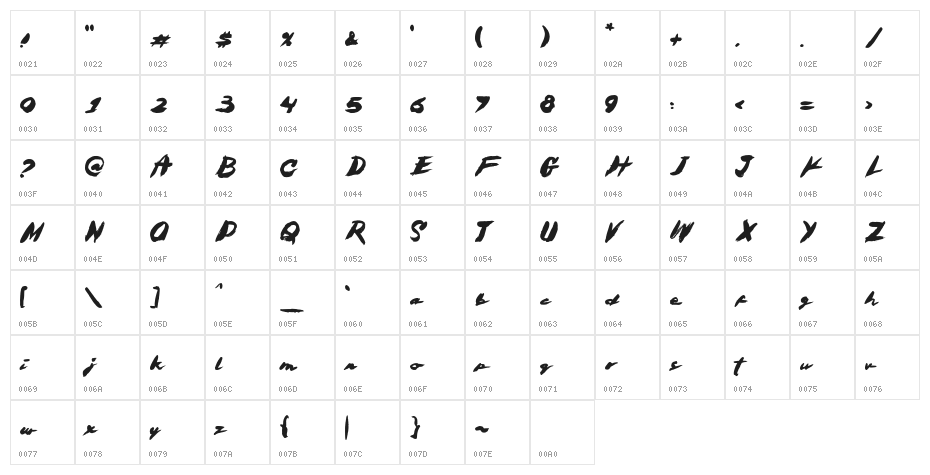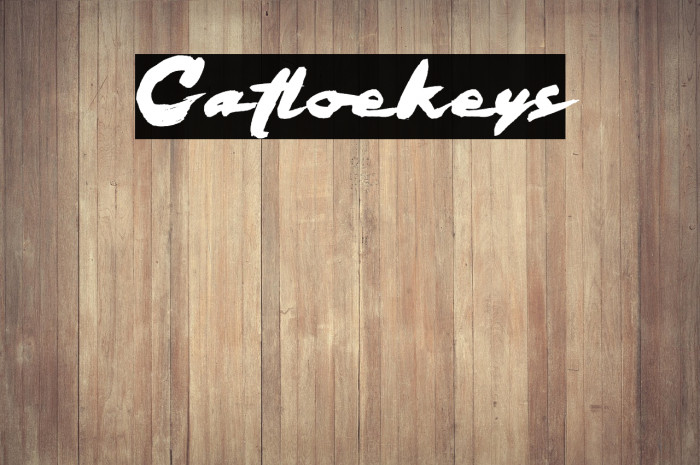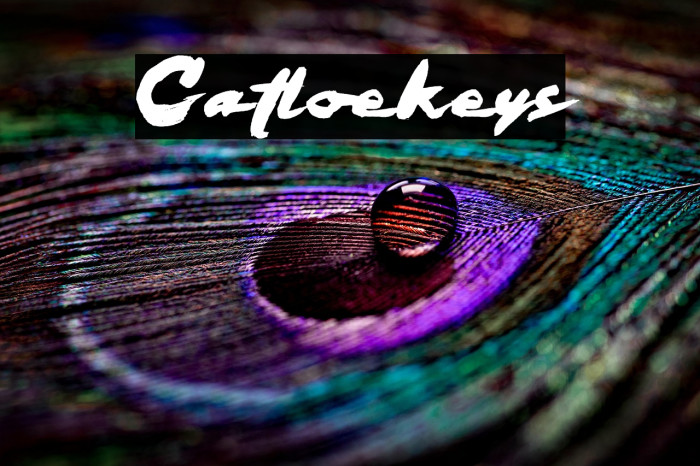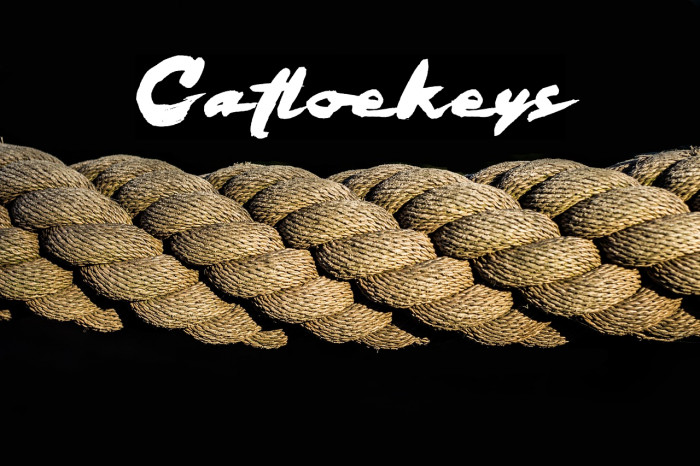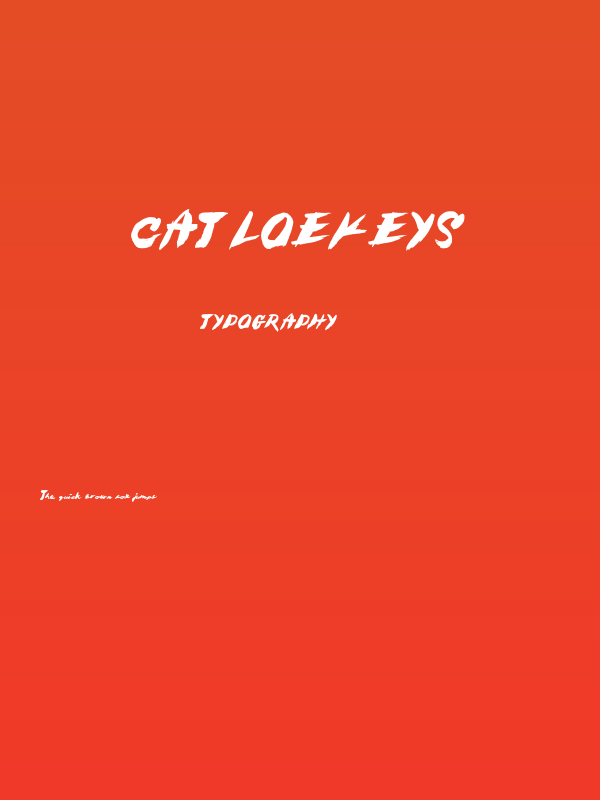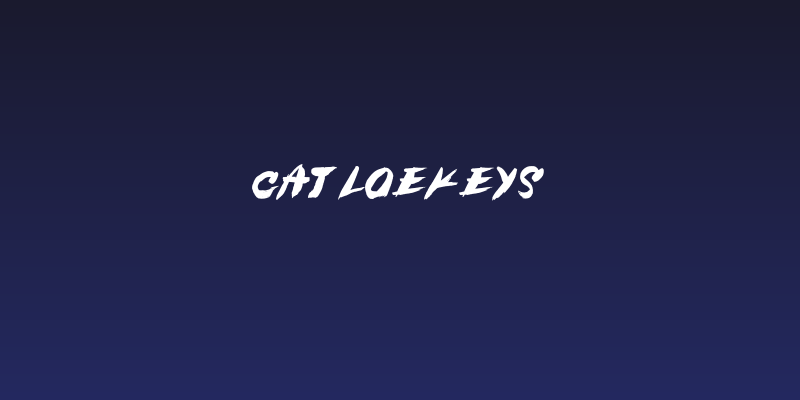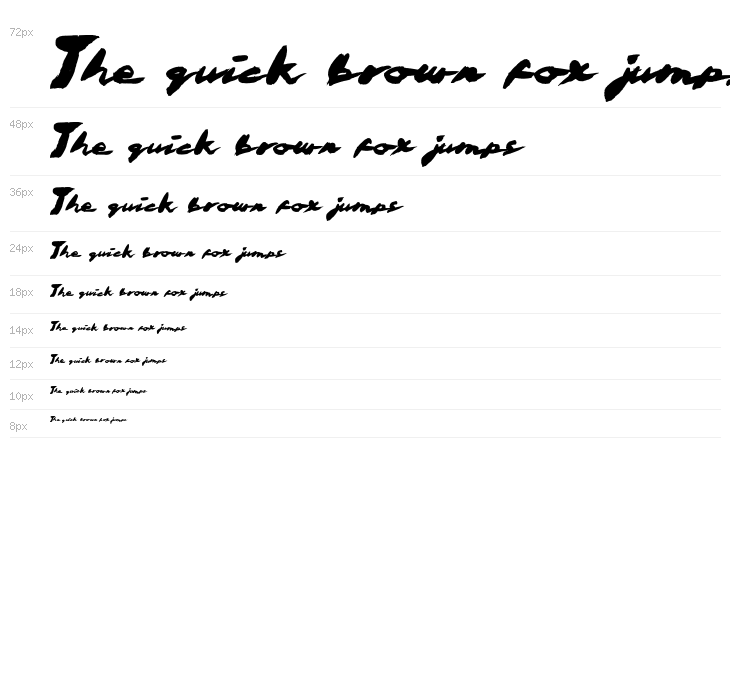
Catloekeys Font
Catloekeys Description
This font features a bold, expressive style with a brush-like texture that gives it a dynamic and energetic appearance. The uppercase and lowercase letters are crafted with a sense of movement, characterized by irregular strokes and varying thicknesses that add a hand-painted feel. The numbers and special characters maintain this artistic flair, ensuring consistency across all elements. The overall design is both modern and edgy, making it suitable for projects that require a touch of creativity and individuality.
| Overall Style | Modern, Artistic |
| Proposed Projects | Ideal for branding, posters, album covers, and any creative project that requires a bold, artistic touch. |